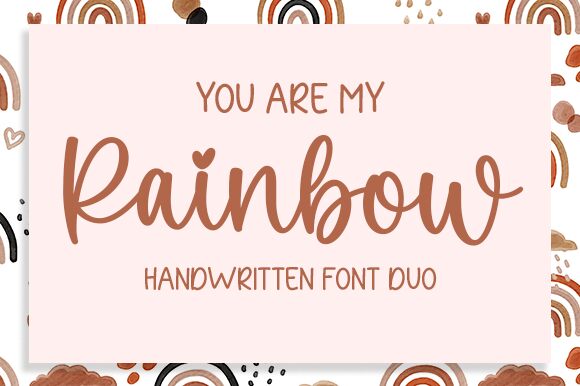
Rainbow
Rainbow is a charming handwritten font designed by Graphix Line Studio. Its playful and quirky style will add a touch of joy to any project. This semi-bold font is perfect for creating eye-catching logos, social media graphics, and invitations. With its unique letterforms, Rainbow is suitable for children's books, greeting cards, and scrapbooking projects. The font width makes it ideal for headlines and titles that need to stand out. Whether you're designing a whimsical website or an adorable baby shower invitation, Rainbow is the perfect choice to convey your message with both style and personality.